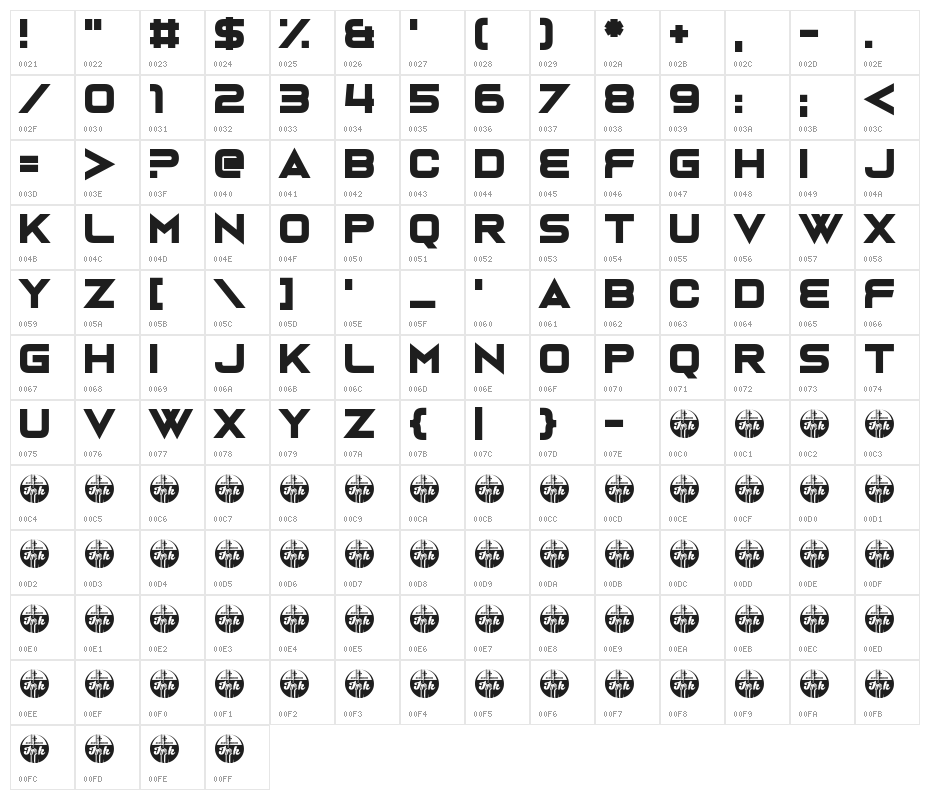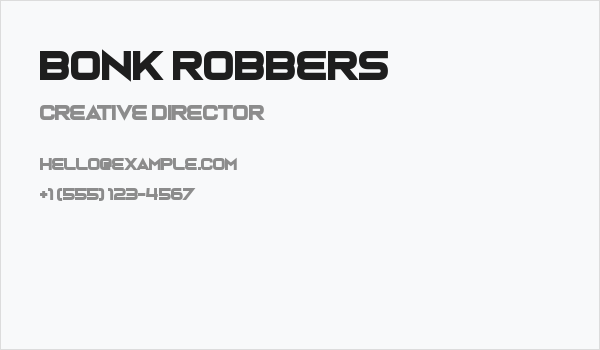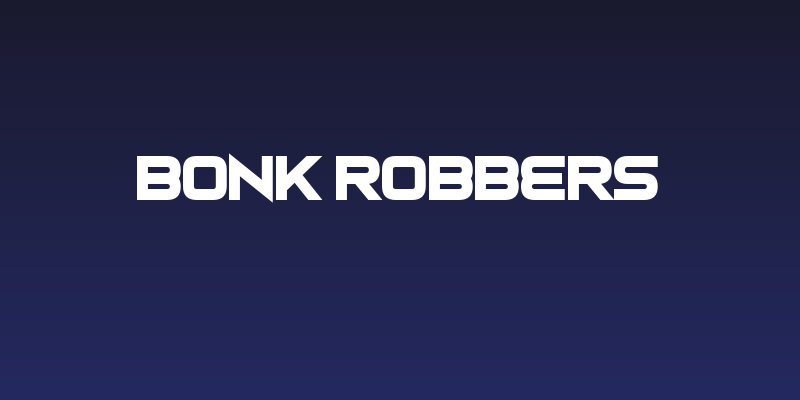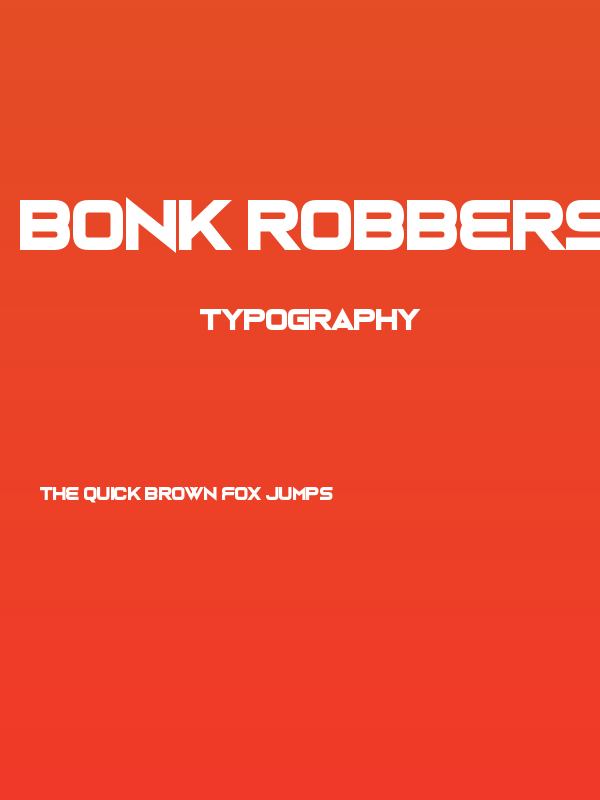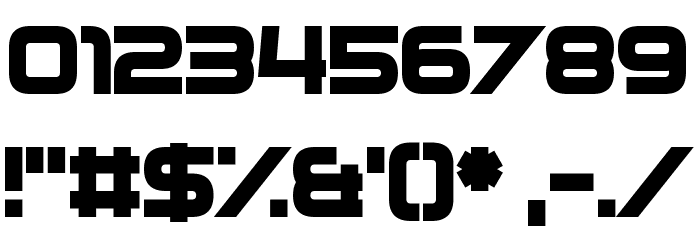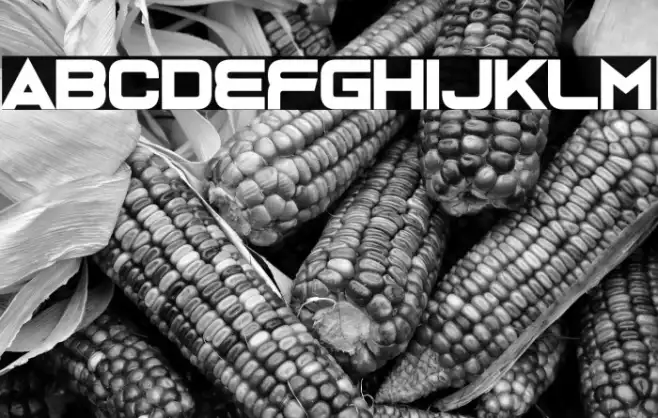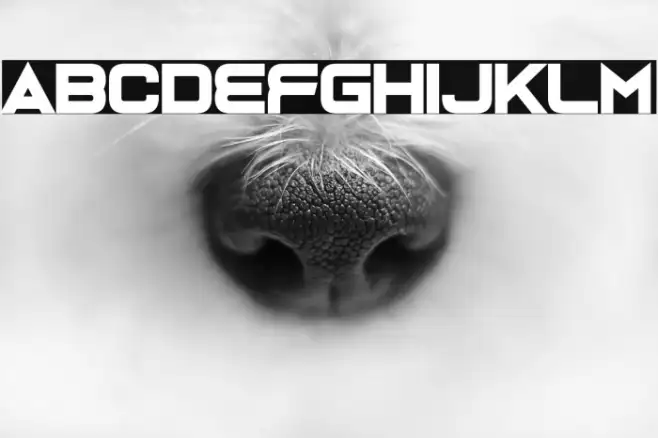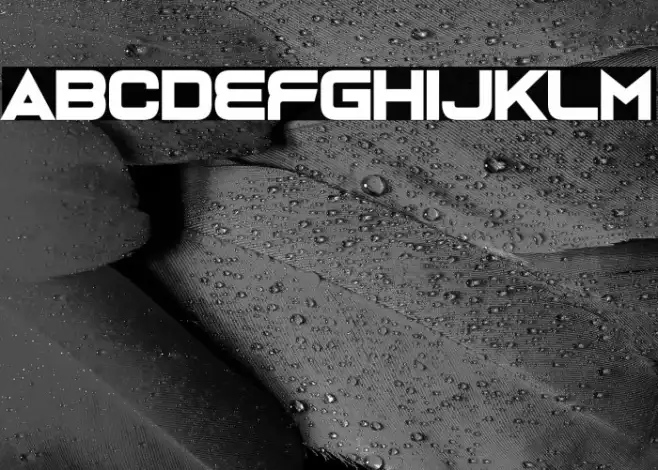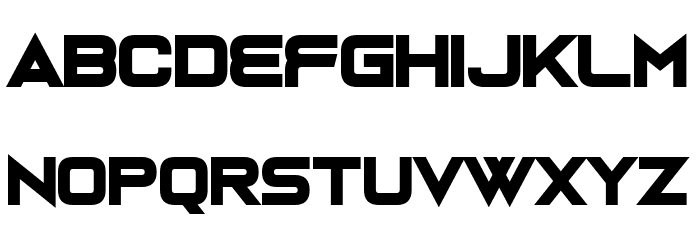
Bonk Robbers Font
Bonk Robbers Description
This font features a bold and geometric design with a strong, modern aesthetic. The characters are constructed with thick, uniform strokes, giving them a robust and impactful appearance. The angular and sharp edges contribute to a futuristic and industrial feel, making it stand out in any design. The uppercase and lowercase letters maintain a consistent style, while the numbers and special characters are designed to complement the overall look. This font is ideal for projects that require a bold statement and a contemporary touch.
| Proposed Projects | Ideal for branding, posters, headlines, and any design requiring a strong visual impact. |